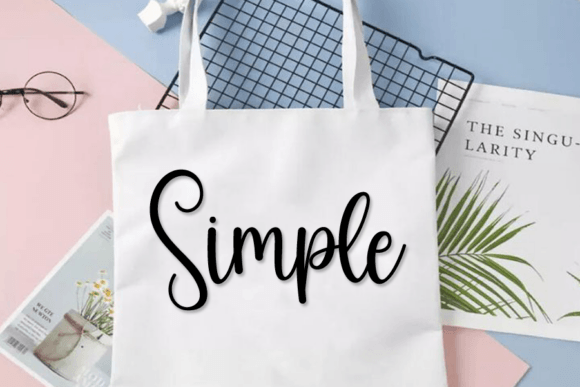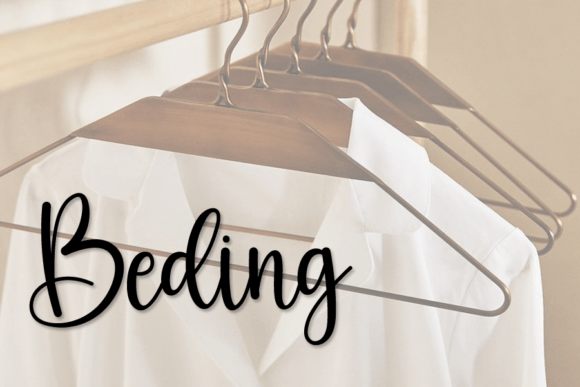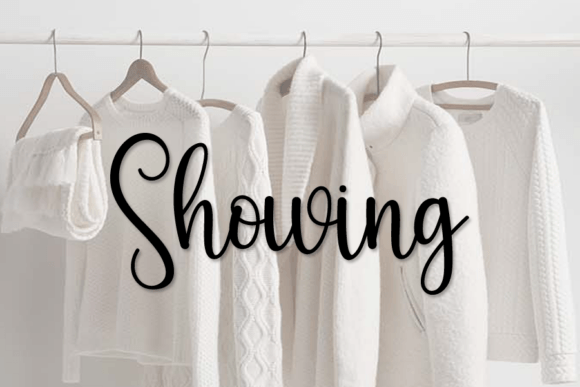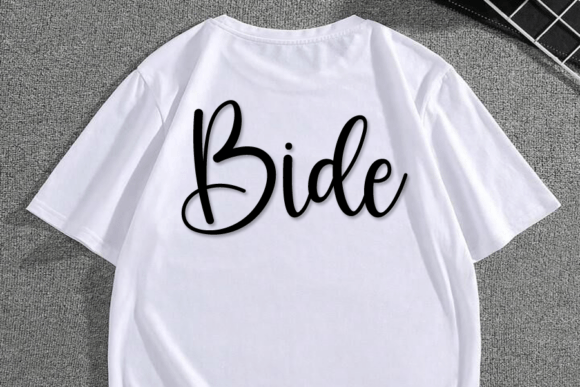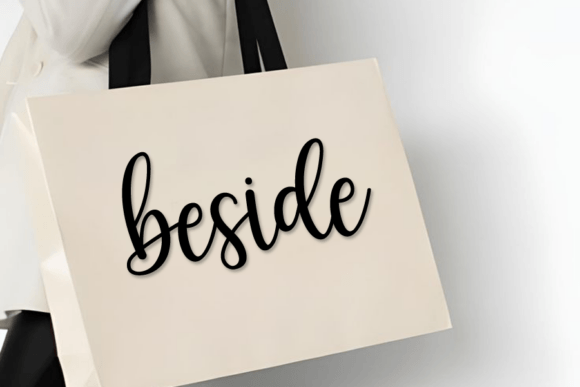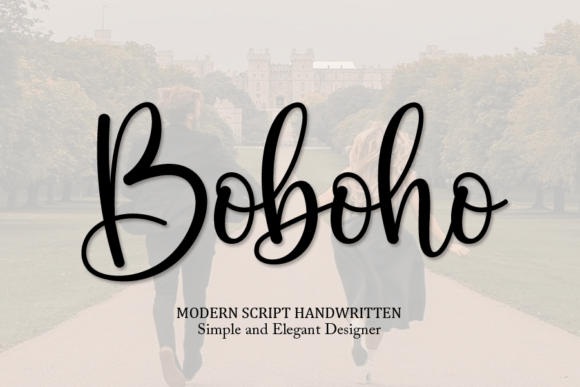
Boboho Font: A Timeless Handwritten Script for Creative Design Projects
In the world of typography, few fonts have managed to capture the essence of simplicity and elegance as effectively as Boboho Font. This classic handwritten script, created in a random and free style, has become a go-to choice for designers and crafters looking to add a touch of personality to their creative projects. In this article, we’ll explore the unique features of Boboho Font, its versatility, and why it’s an excellent addition to your design toolkit.
The Origins of Boboho Font
Boboho Font is a carefully crafted handwritten script that exudes a sense of effortless charm. Its random and free style gives it a unique, organic feel that’s perfect for designs that require a personal touch. Whether you’re working on a logo, headline, or any other creative project, Boboho Font is sure to make a lasting impression.
Key Features of Boboho Font
So, what makes Boboho Font so special? Here are some of its key features:
- Classic and Simple: Boboho Font boasts a timeless design that’s both elegant and understated.
- Handwritten Script: Its handwritten style gives Boboho Font a personal, human touch that’s perfect for designs that require a bit of personality.
- Random and Free Style: The font’s random and free style ensures that each letter and word has a unique, organic feel.
- Versatile: Boboho Font is suitable for a wide range of design projects, from logotypes and headlines to posters, magazines, and websites.
Use Cases for Boboho Font
Boboho Font is an incredibly versatile font that can be used in a variety of design projects, including:
- Logotype and Branding: Use Boboho Font to create a unique and memorable logo for your brand.
- Headlines and Titles: Add a touch of elegance to your headlines and titles with Boboho Font.
- Corporate Identity: Use Boboho Font to create a cohesive and professional look for your company’s marketing materials.
- Apparel Industry: Boboho Font is perfect for designing t-shirts, hoodies, and other apparel.
- Posters and Flyers: Add a personal touch to your posters and flyers with Boboho Font.
- Music, Movie, and Game: Use Boboho Font to create eye-catching titles and credits for your music, movie, or game projects.
- Magazines and Books: Boboho Font is a great choice for magazine and book titles, headers, and footers.
- Comics and Cartoons: Add a playful touch to your comics and cartoons with Boboho Font.
- YouTube, Instagram, and Websites: Use Boboho Font to create engaging and professional-looking content for your social media channels and website.
Why Choose Boboho Font?
With so many fonts available, why choose Boboho Font? Here are a few compelling reasons:
- Unique and Memorable: Boboho Font’s unique style ensures that your designs will stand out from the crowd.
- Elegant and Understated: Boboho Font’s classic design makes it perfect for designs that require a touch of elegance.
- Easy to Read: Despite its handwritten style, Boboho Font is surprisingly easy to read, making it perfect for body text and headlines.
In conclusion, Boboho Font is a timeless handwritten script that’s perfect for designers and crafters looking to add a touch of personality to their creative projects. Its unique features, versatility, and elegance make it an excellent addition to your design toolkit. Whether you’re working on a logotype, headline, or any other design project, Boboho Font is sure to make a lasting impression.